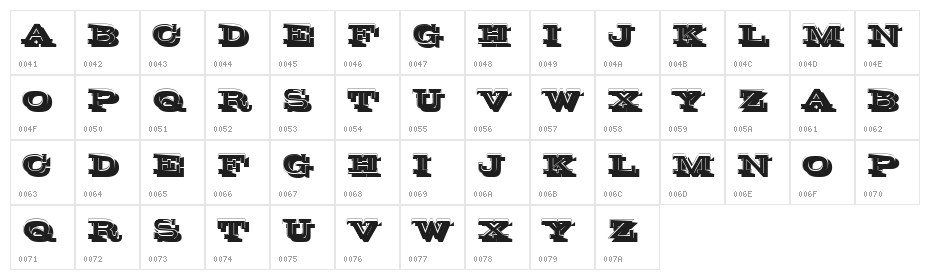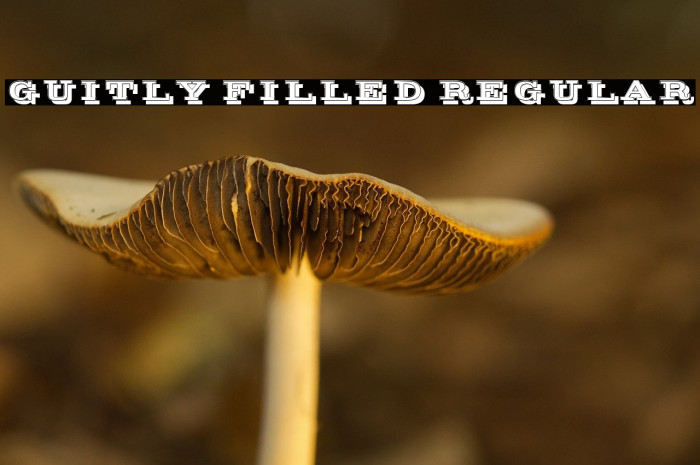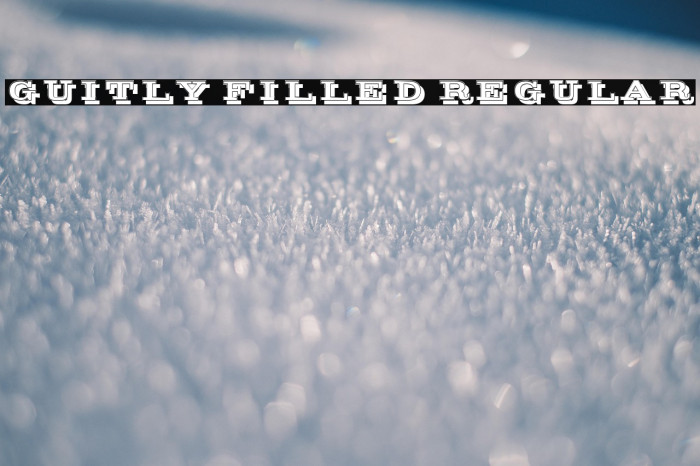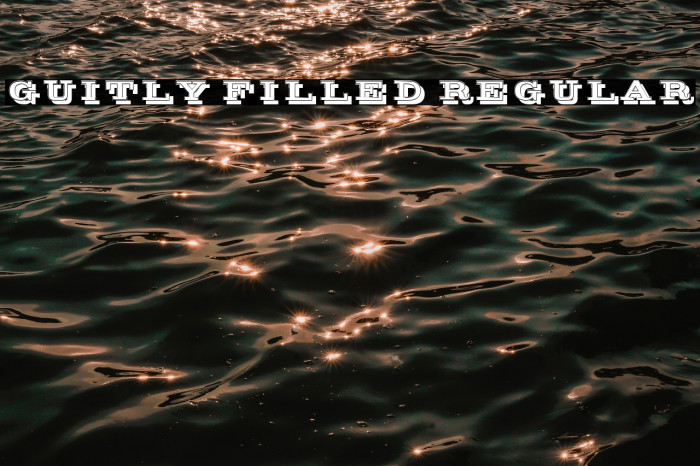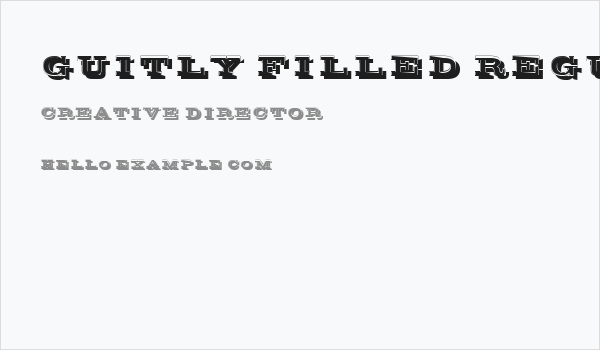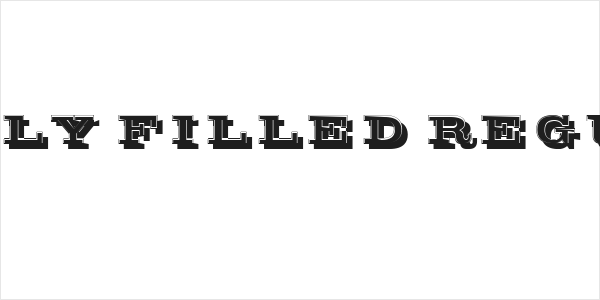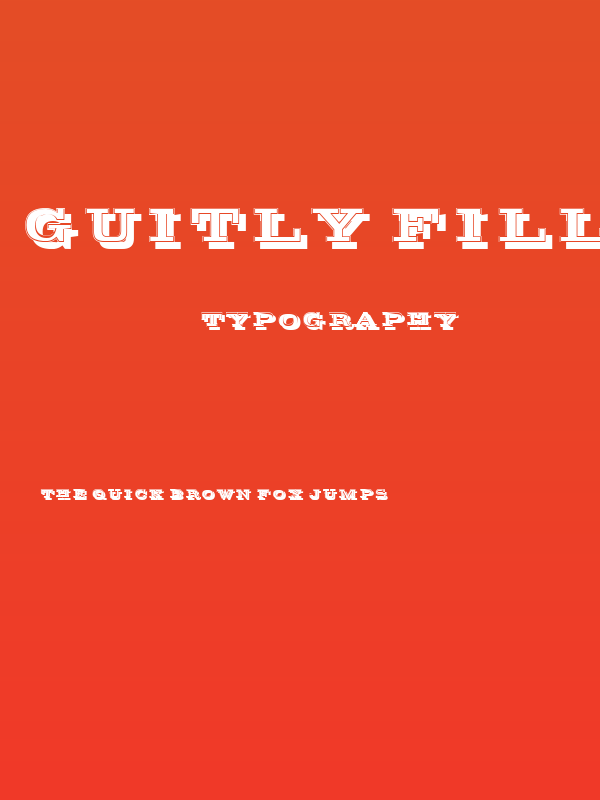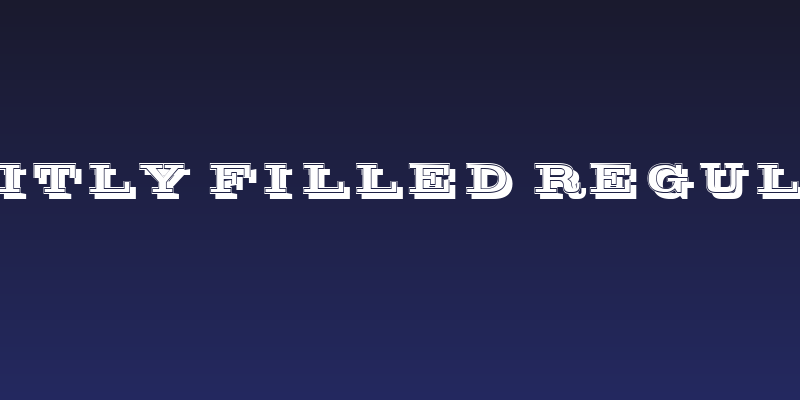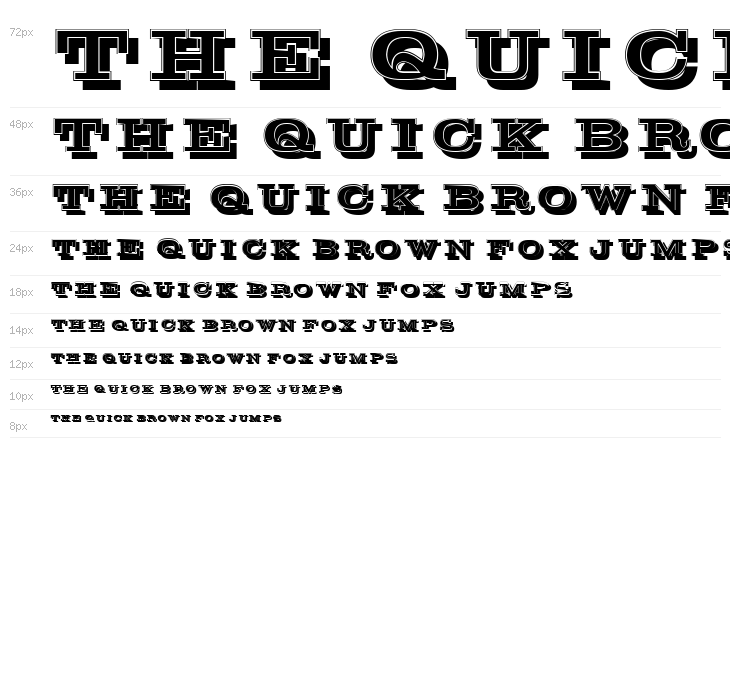
Guitly Filled Regular Font
Guitly Filled Regular Description
This font features a bold and decorative style with a filled design that gives it a striking appearance. The characters are uppercase with a shadow effect that adds depth and dimension. The serifs are prominent, enhancing the classic yet modern feel. The font's unique style makes it stand out, with a playful yet sophisticated look. The spacing between characters is normal, ensuring readability while maintaining its decorative appeal. This font is perfect for projects that require a bold statement, combining traditional serif elements with a contemporary twist.
| Proposed Projects | Ideal for headlines, posters, branding, and any design needing a bold, eye-catching typeface. |